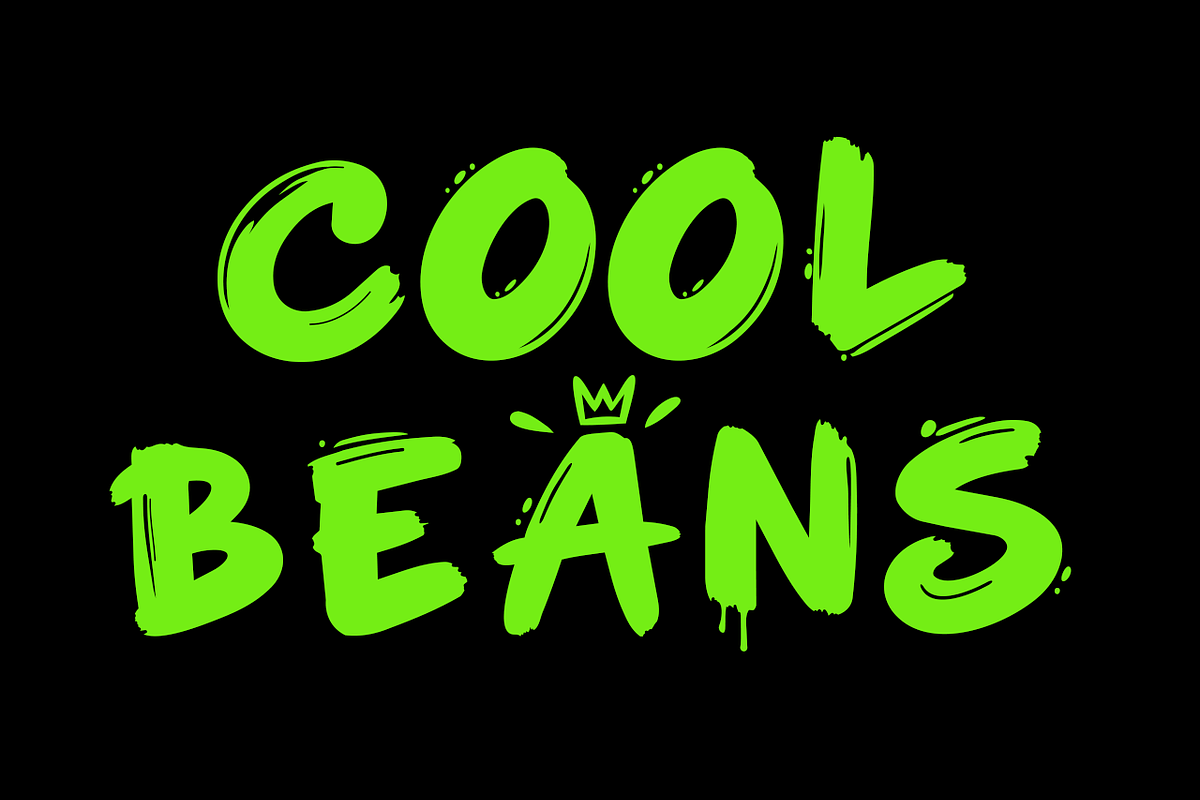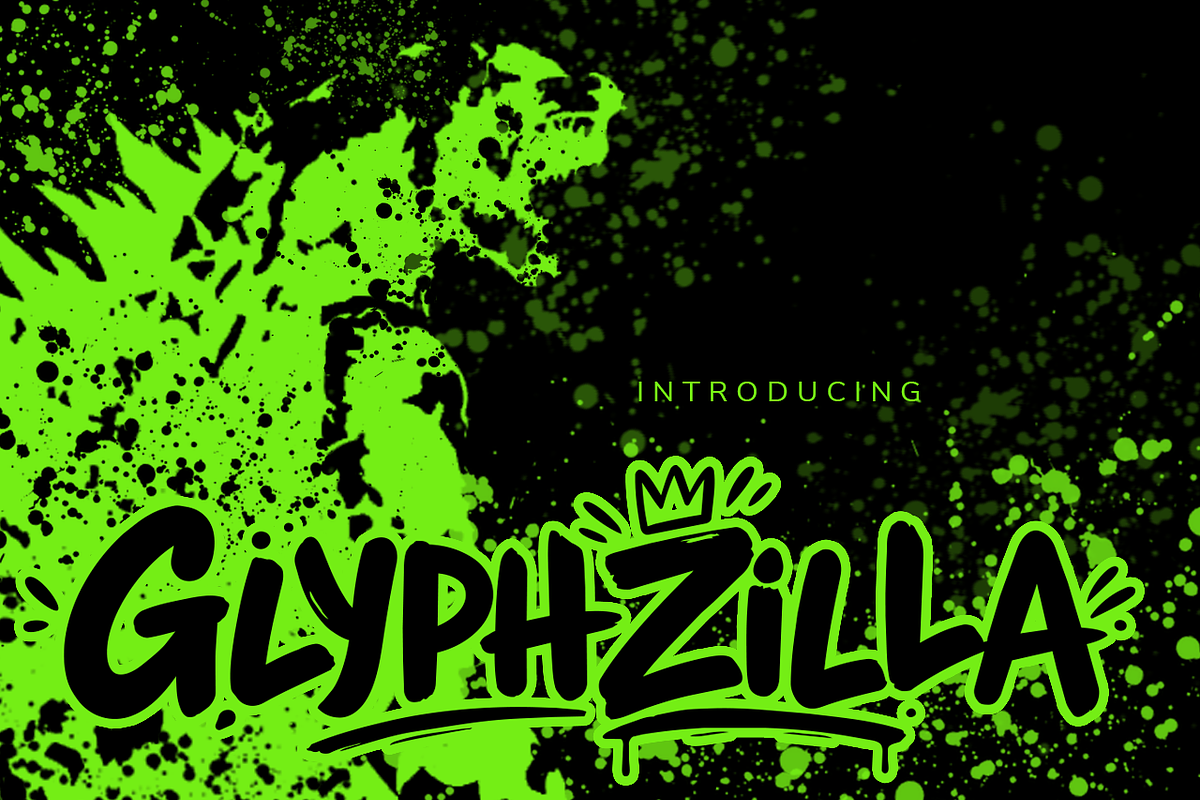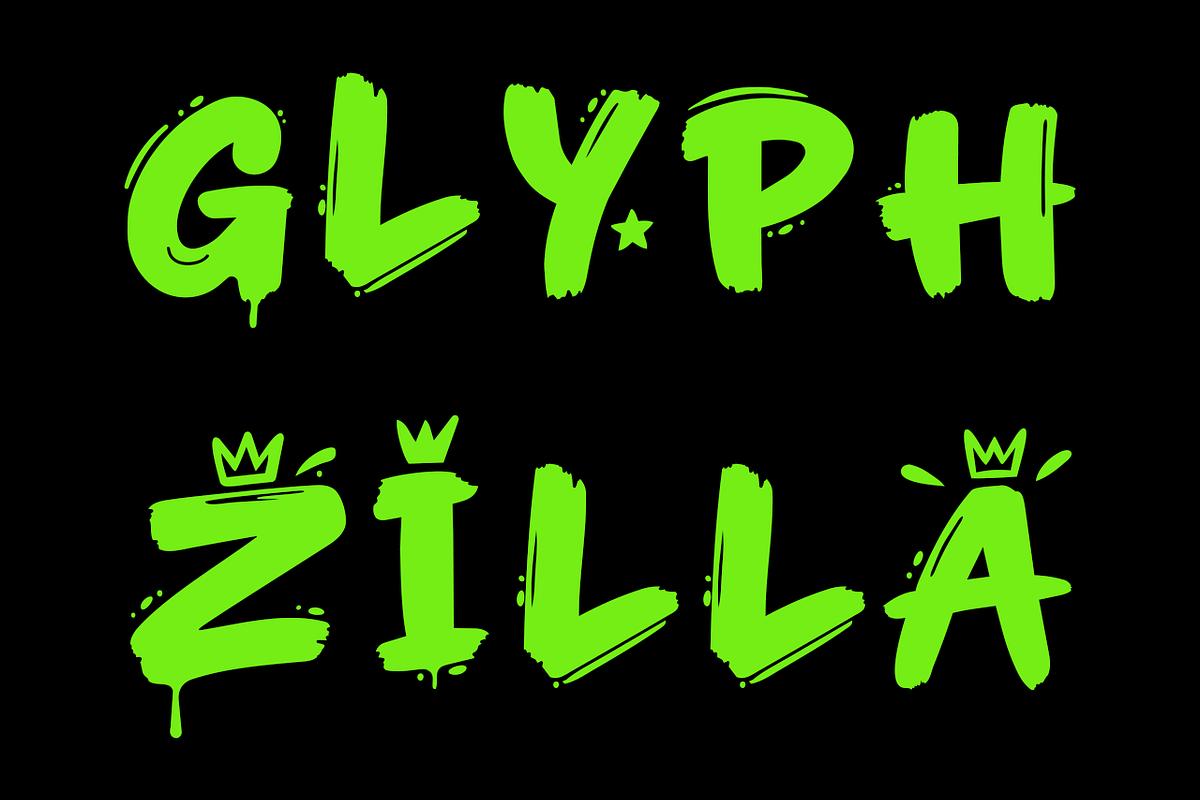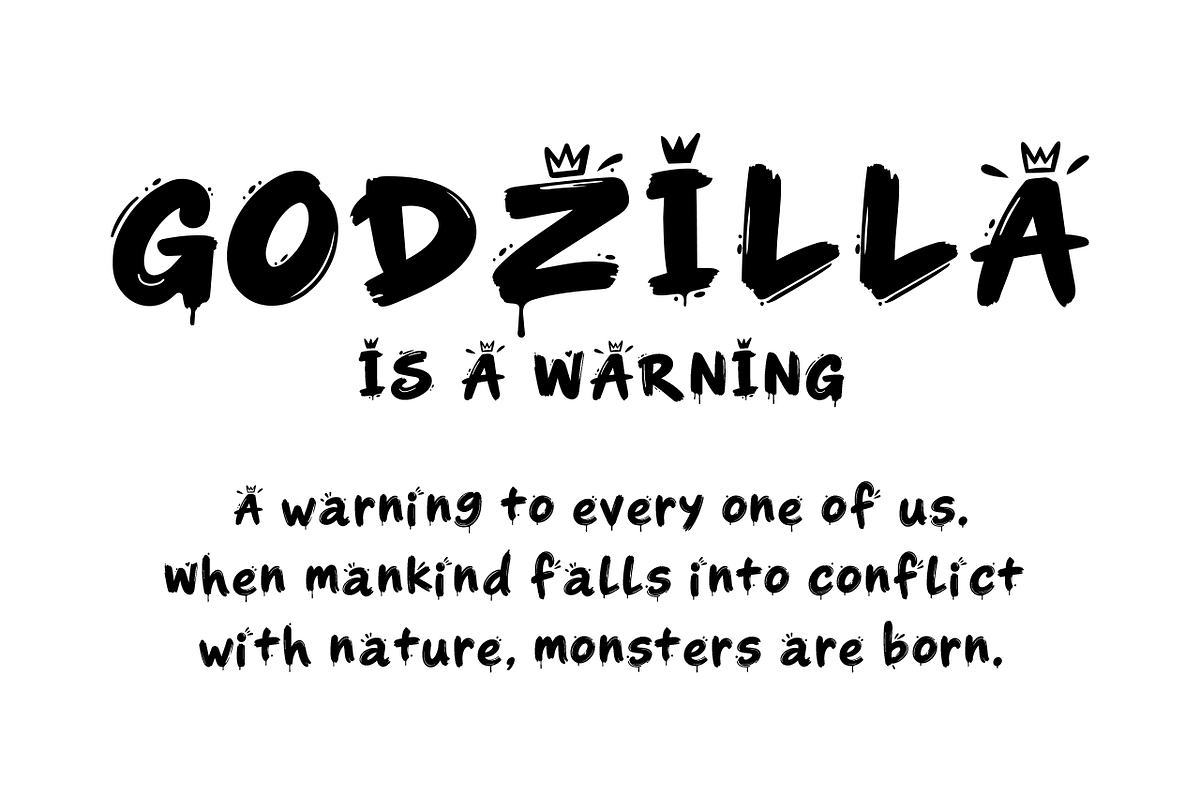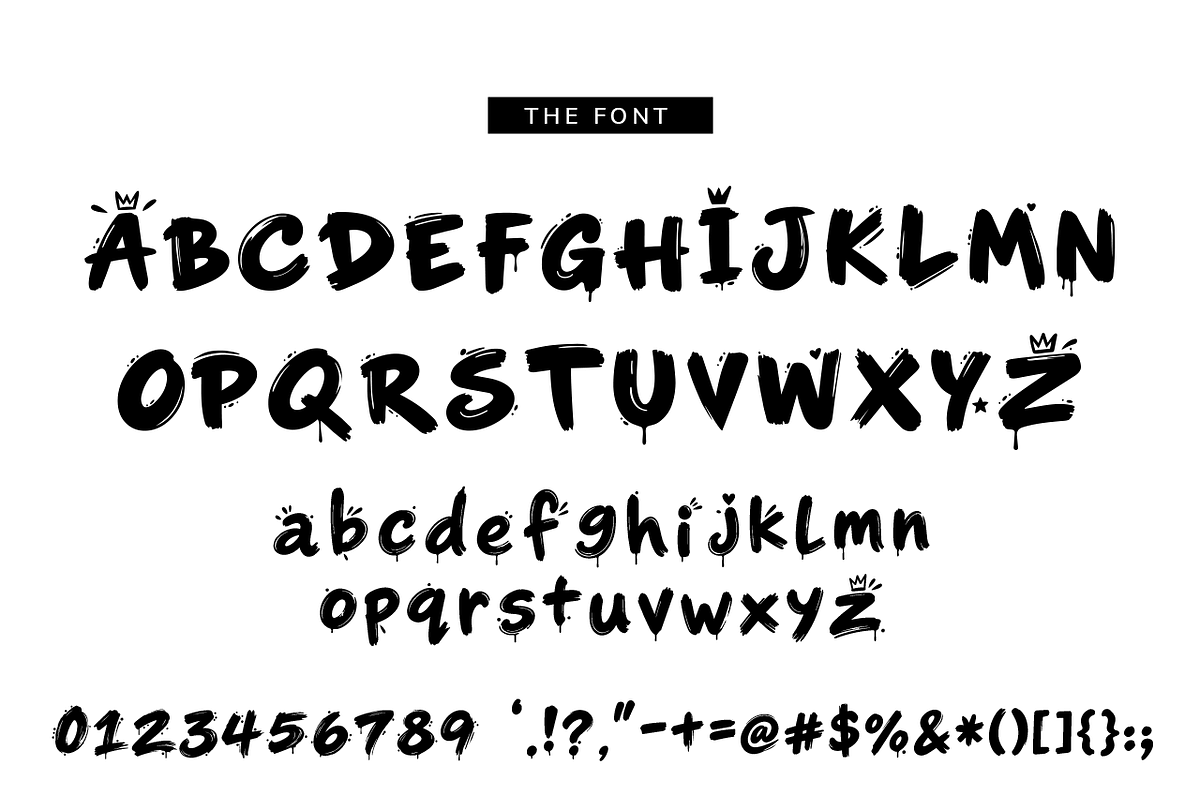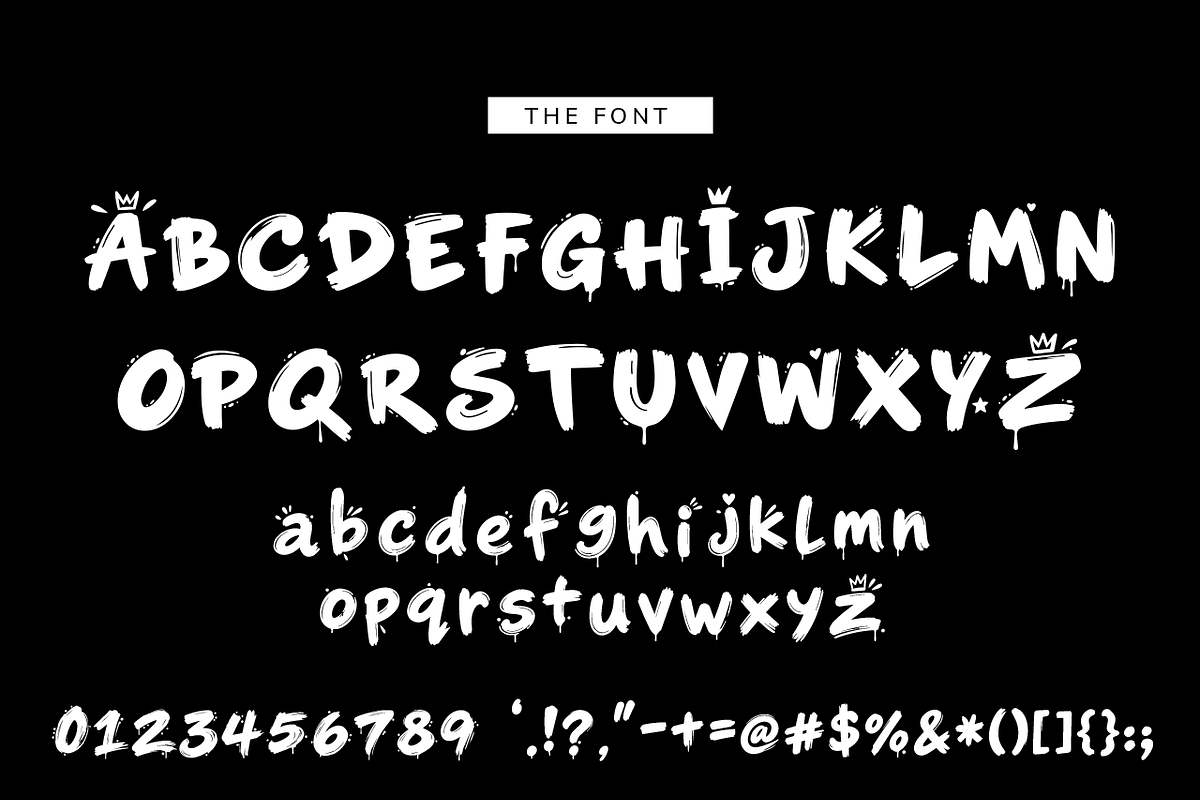
Glphzilla
Big personality. Messy attitude. Zero boring letters.
Meet Glyphzilla, a loud, playful, hand-painted display font built for designs that refuse to blend in.
Inspired by street art, expressive brush lettering, ink splashes, and the beautifully imperfect marks of a real artist, Glyphzilla combines chunky, energetic letterforms with rough edges, bold strokes, and just the right amount of chaos.
Every character has its own personality while maintaining a cohesive alphabet—giving your designs an authentic handmade feel without sacrificing readability.